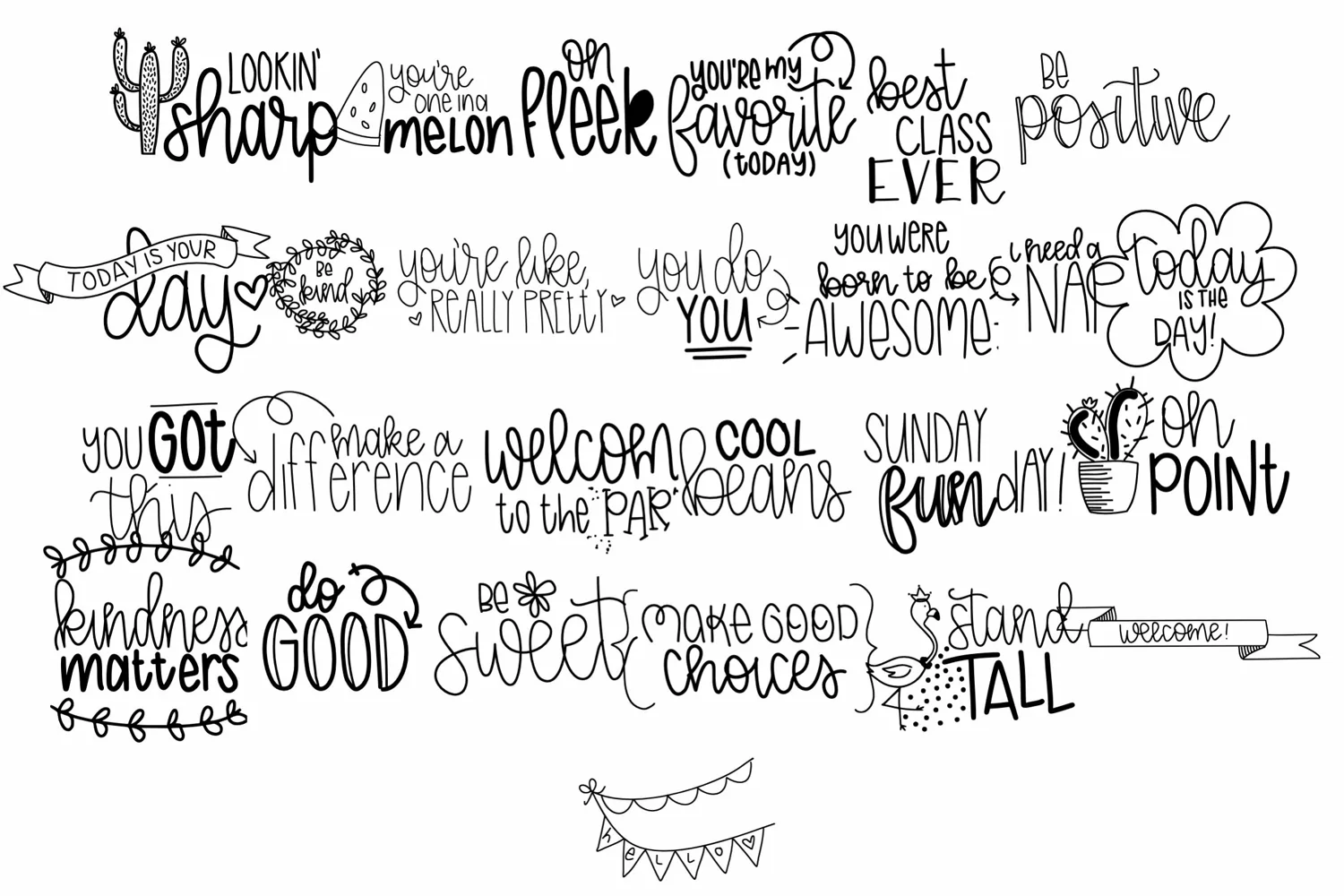
Washi Tape Doodle Font | Doodle Font
This doodle font is a fun way to add some flare to worksheets, newsletters, and so much more! With positive quotes inspired doodles, there are a variety of ways to combine and make it your own!
There are 60 hand drawn individual positive quotes doodles, with a font poster included!
**There are no accents or letters included in these fonts at this time**